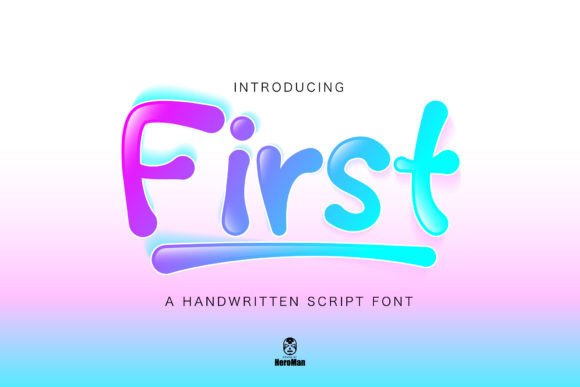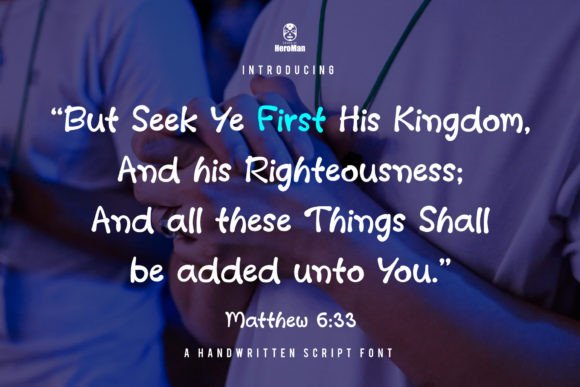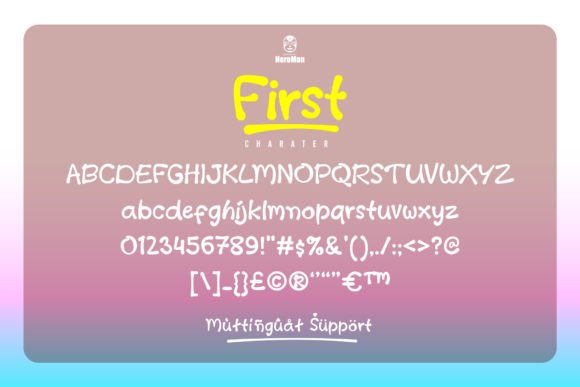
Introducing First Font: Add a Personal Touch to Your Designs
Are you tired of using the same old fonts in your designs? Do you want to add a personal and realistic feel to your projects? Look no further than First Font, a fun and whimsical handwritten font that’s perfect for designers and crafters alike. In this article, we’ll take a closer look at First Font, its features, and how you can use it to elevate your designs.
What is First Font?
First Font is a handwritten font that’s designed to look authentic and personal. Its unique and whimsical style makes it perfect for adding a touch of personality to your designs. Whether you’re working on a magazine, book, branding project, or social media post, First Font is sure to make your design stand out.
Features of First Font
- Authentic look: First Font has an authentic, handwritten look that’s perfect for adding a personal touch to your designs.
- Whimsical style: The font’s whimsical style makes it perfect for designs that require a playful and creative touch.
- Versatile: First Font is versatile and can be used on a variety of projects, including magazines, books, branding, advertising, social media posts, and more.
- Easy to read: Despite its handwritten style, First Font is easy to read, making it perfect for body text and headings.
How to Use First Font in Your Designs
First Font is easy to use and can be incorporated into your designs in a variety of ways. Here are a few ideas to get you started:
- Magazines and books: Use First Font as a headline or body text font to add a personal touch to your publication.
- Branding and advertising: Use First Font to create unique and eye-catching branding and advertising materials, such as logos, brochures, and flyers.
- Social media posts: Add a personal touch to your social media posts by using First Font in your graphics and captions.
- Crafting and DIY projects: First Font is perfect for crafters and DIY enthusiasts who want to add a personal touch to their projects, such as handmade cards, scrapbooking, and more.
Tips for Using First Font Effectively
Here are a few tips for using First Font effectively in your designs:
- Use it sparingly: While First Font is a beautiful font, it can be overwhelming if used too much. Use it sparingly to add a touch of personality to your design.
- Pair it with other fonts: First Font pairs well with other fonts, such as serif and sans-serif fonts. Experiment with different pairings to find the one that works best for your design.
- Adjust the size and color: Adjust the size and color of First Font to fit your design. A smaller size and a bold color can make a big impact.
First Font is a fun and whimsical handwritten font that’s perfect for designers and crafters who want to add a personal and realistic feel to their designs. With its authentic look, versatile style, and ease of use, First Font is sure to become a favorite in your font collection. Try it out on your next project and see the difference it can make!